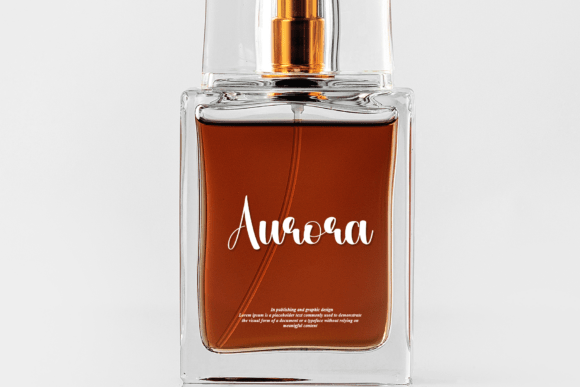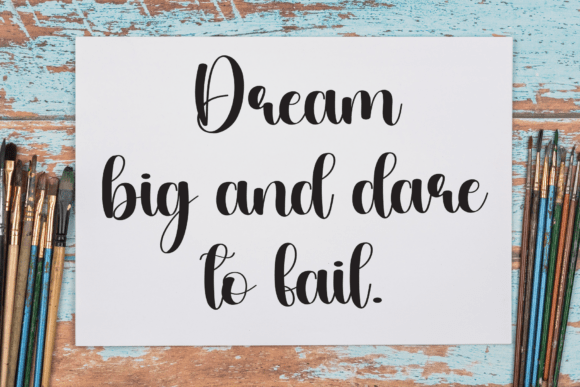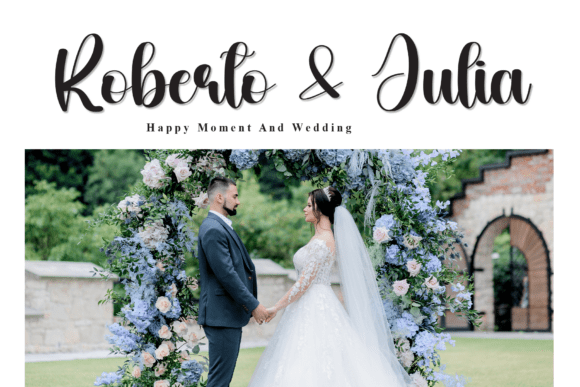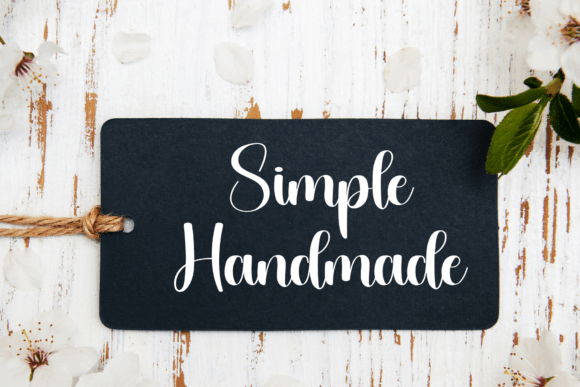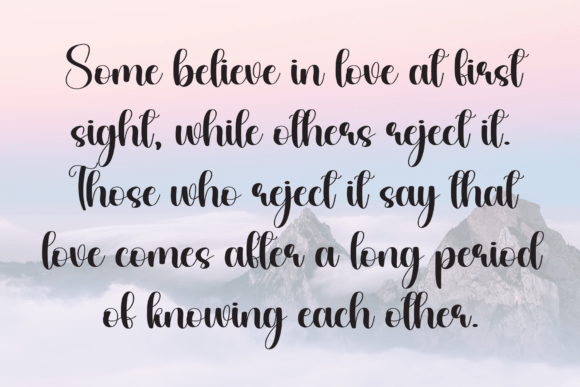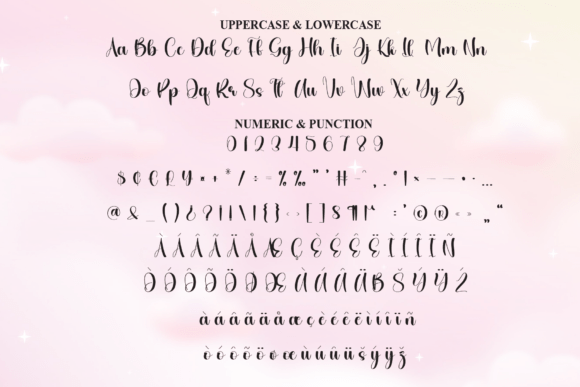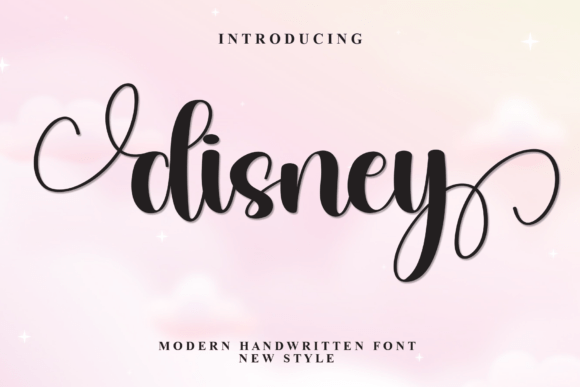
Introducing the Magical World of Disney Font: Elevate Your Designs with Enchanting Typography
Are you a designer, crafter, or creative enthusiast looking for a touch of magic in your projects? Look no further than the Disney Font, a captivating and versatile typeface that brings the whimsy and wonder of Disney to your designs. In this article, we’ll explore the enchanting world of Disney Font, its features, and how it can elevate your creative projects to new heights.
Unleash Your Creativity with Disney Font
The Disney Font is a treasure trove of creative possibilities, perfect for a wide range of applications, including:
• Wall displays and signage
• Social media post logos and graphics
• Advertisements and marketing materials
• Product packaging and design
• Labels and branding
• Photography and watermarks
• Invitations and party decor
• Stationery and paper crafts
With the Disney Font, you can add a dash of Disney magic to any project, making it truly unforgettable. Whether you’re a professional designer or a crafty DIY enthusiast, this font is sure to inspire your creativity and take your designs to the next level.
The Benefits of Disney Font for Designers and Crafters
So, what sets the Disney Font apart from other typefaces? Here are just a few benefits that make it a must-have for designers and crafters:
• Unique and recognizable style: The Disney Font boasts a distinctive, cursive script that’s instantly recognizable as Disney. Add a touch of nostalgia and wonder to your designs with this enchanting typeface.
• High-quality and versatile: The Disney Font is designed to work seamlessly across a range of applications, from digital design to print and crafting.
Get Ready to Create with Disney Font
Whether you’re a seasoned designer or a crafty DIY enthusiast, the Disney Font is the perfect addition to your creative toolkit. With its magical, whimsical style and versatility across a range of applications, this font is sure to inspire your next project.